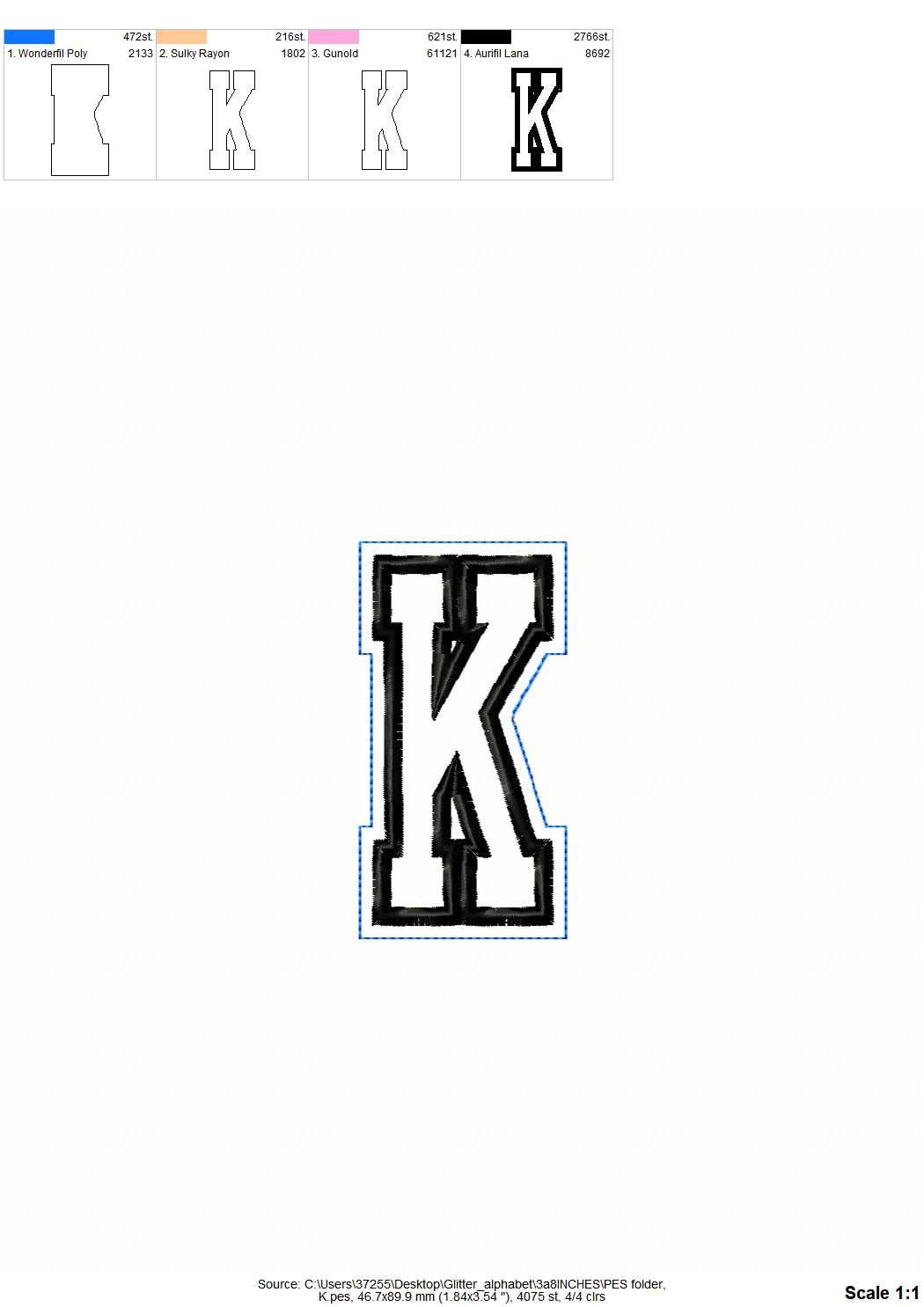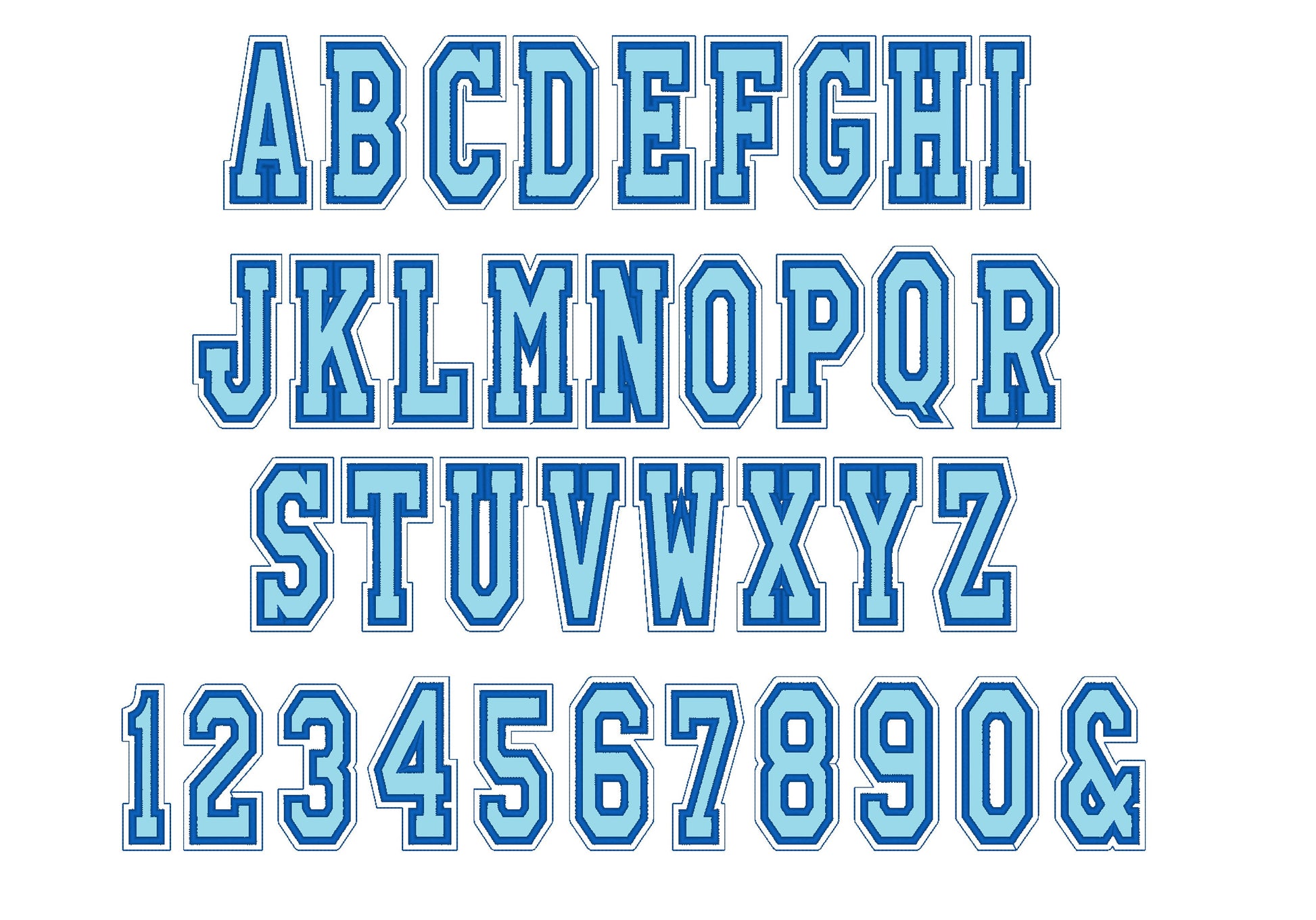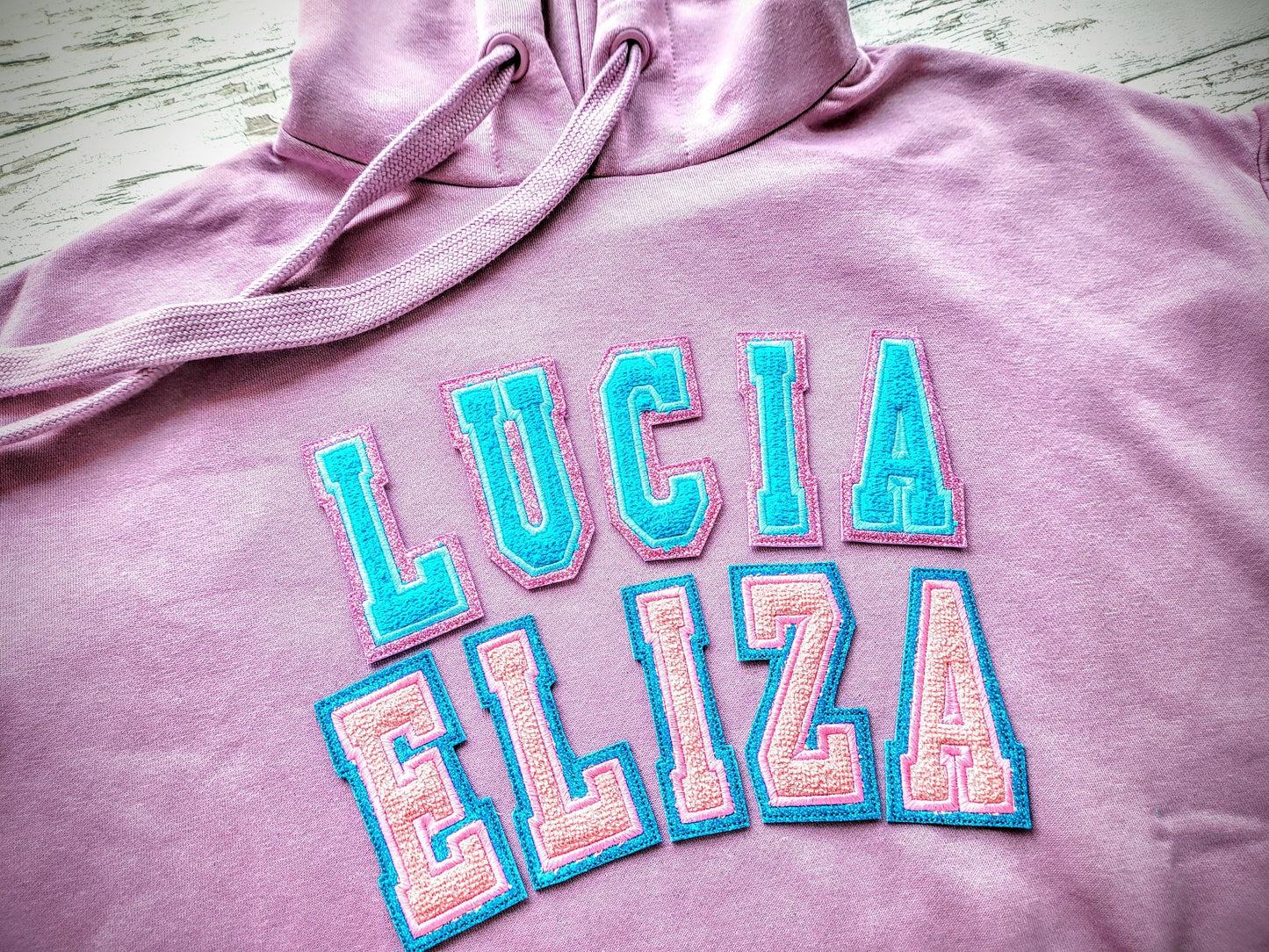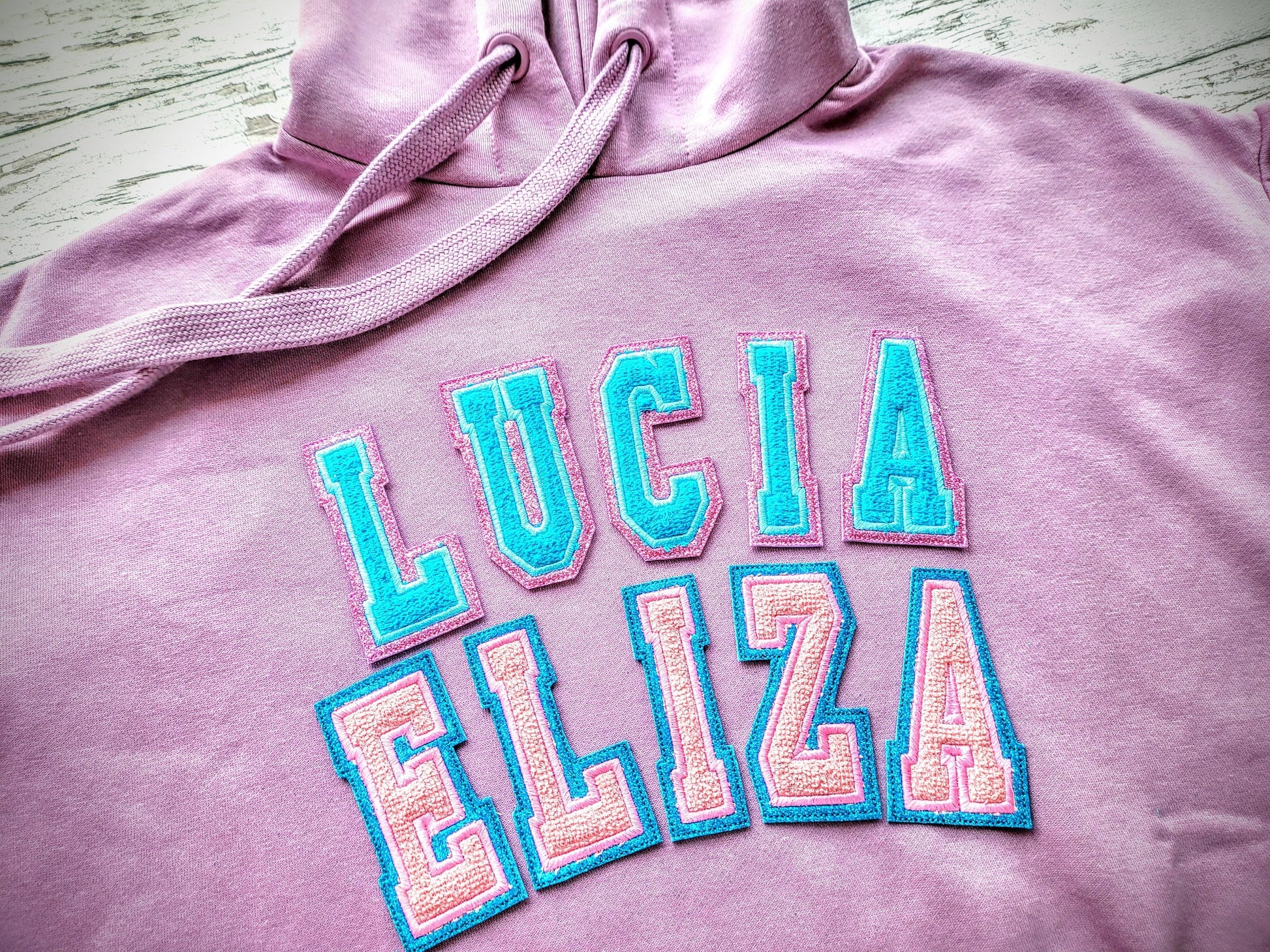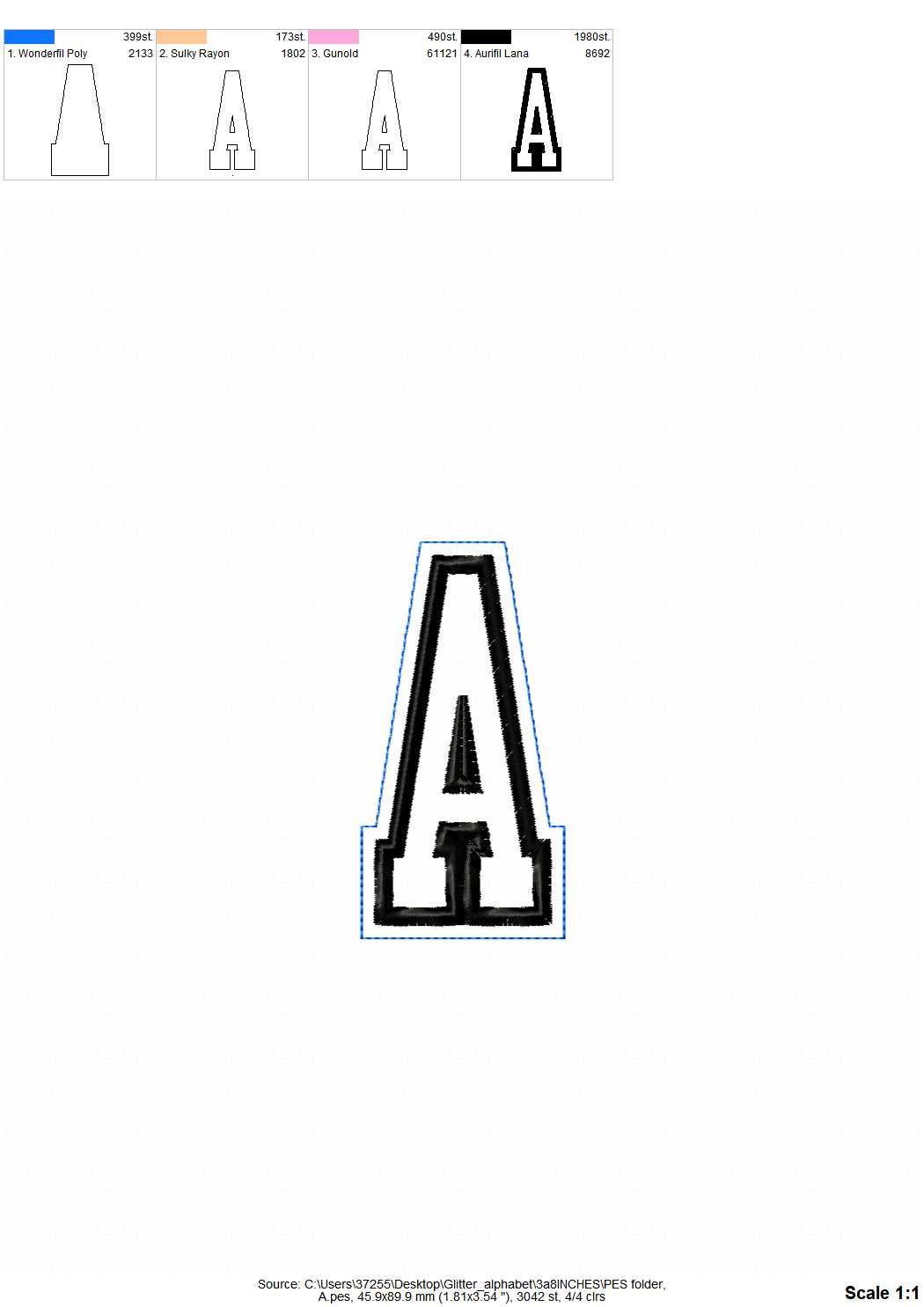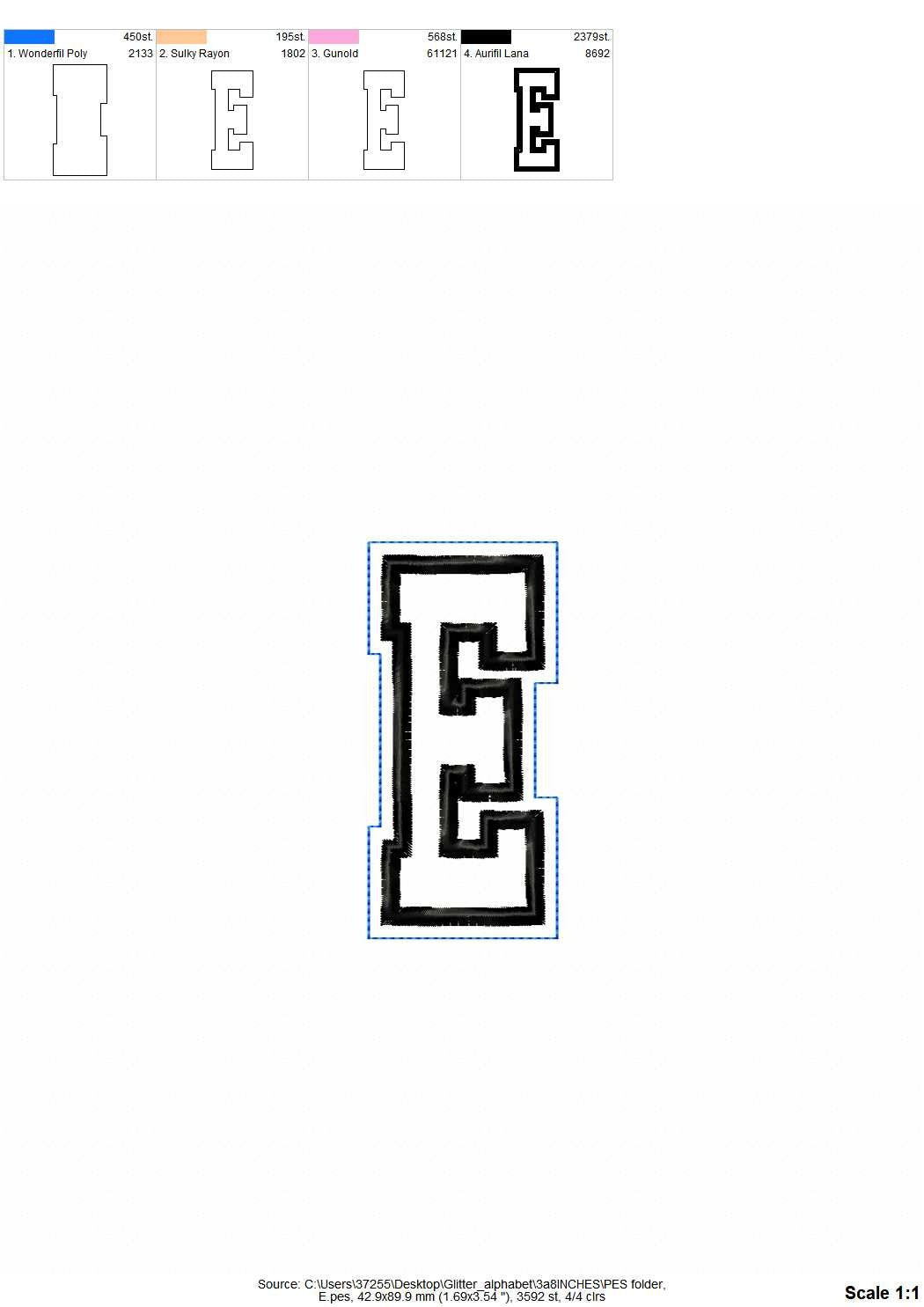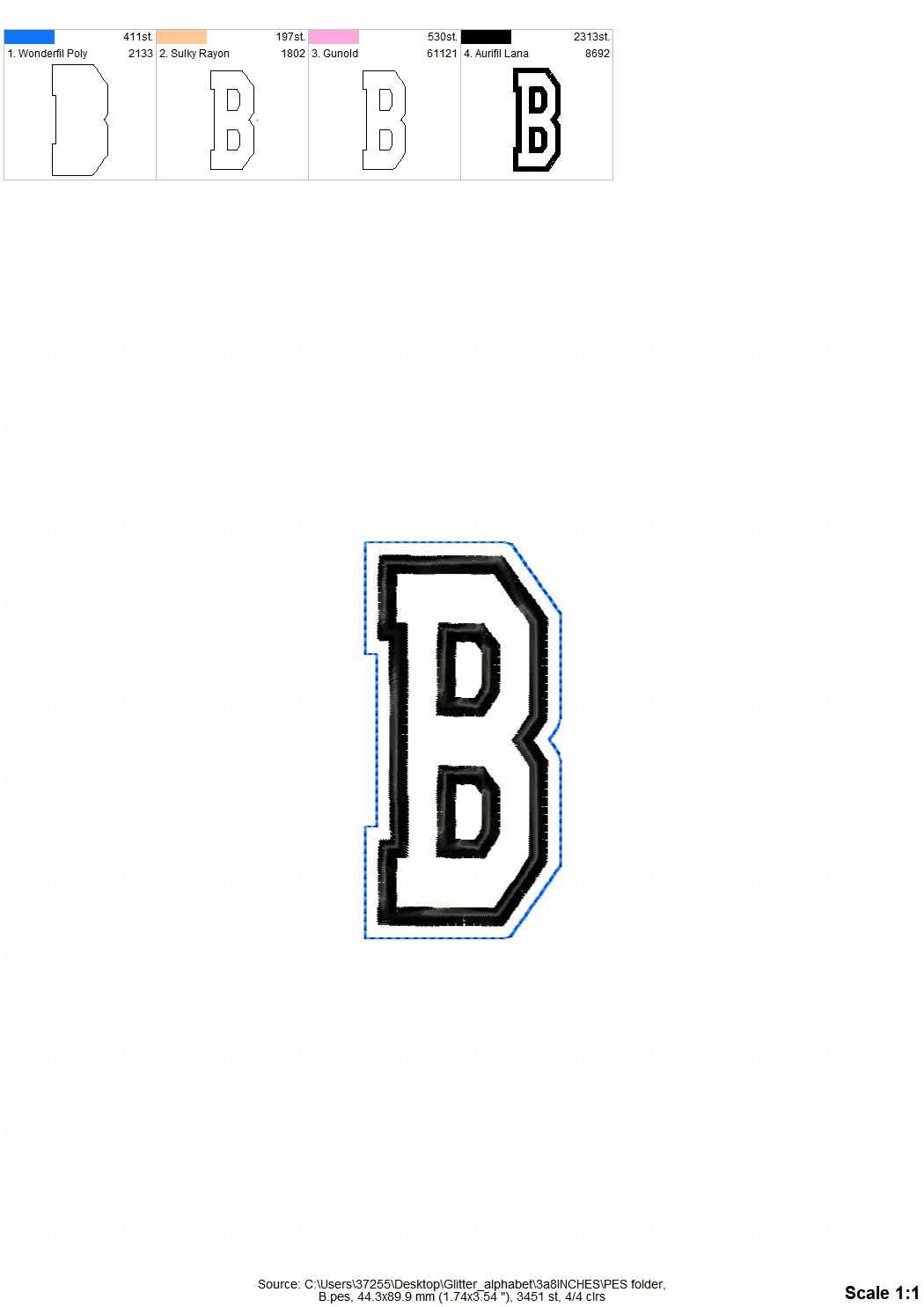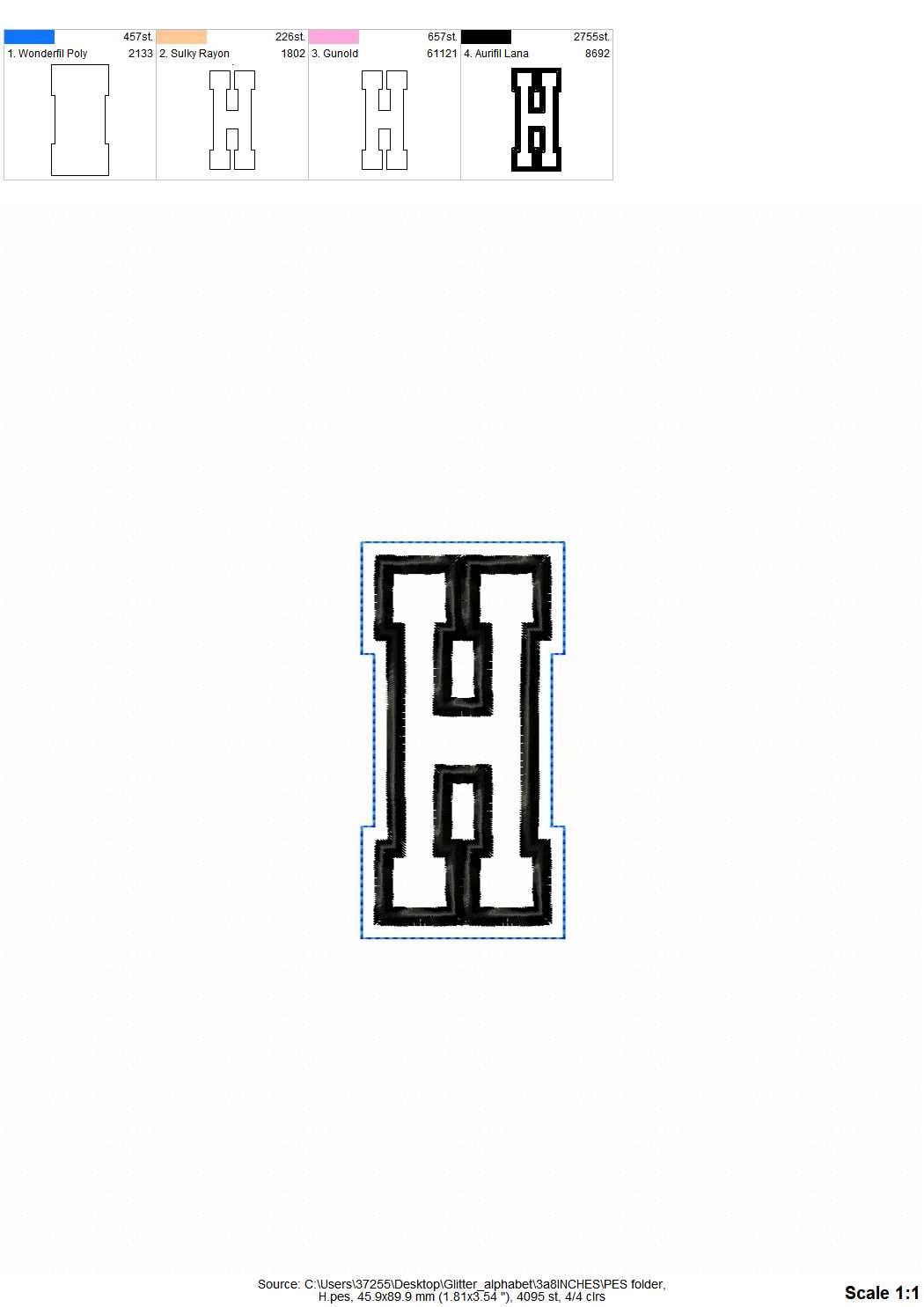
Great digitizing! Stitched our perfect!
Great designs. Lots of choices.
Love this file!! Just what I needed!
Loved this embroidery download. It was perfect for my project.
stitched out nice and was exactly what I was looking for
Cant wait to use this font for a project
stitch work is super great
This is such a perfect and beautiful file!! It stitches out beautifully 😍😍😍
Can not wait to use it
Whew! It took FOREVER, but the result was stunning!
Stitched out great! very happy with purchase.
A definite game changer for machine embroidery. More texture and layers too.
Love the font. Having fun making sweatshirts
Absolutely love this font!! Worked perfectly and stitched out beautifully!
very pleased with the font. easy stitchout and it looks very professional.
Great file. Stitched put beautifully.
Quality stitch out and fun to sew
Super Fun and sewed out perfectly!
beautiful font, cant wait to make it.
Stitched out well but I would say the satin stitch could have been thicker. I had to make 2 passes to fill in. Love the results
Excellent quality embroidery design and stitched perfectly.
Great quality , stitched out perfectly.
I love this font!
Stitched wonderfully. Looks absolutely amazing.
This font stitches out very nicely!